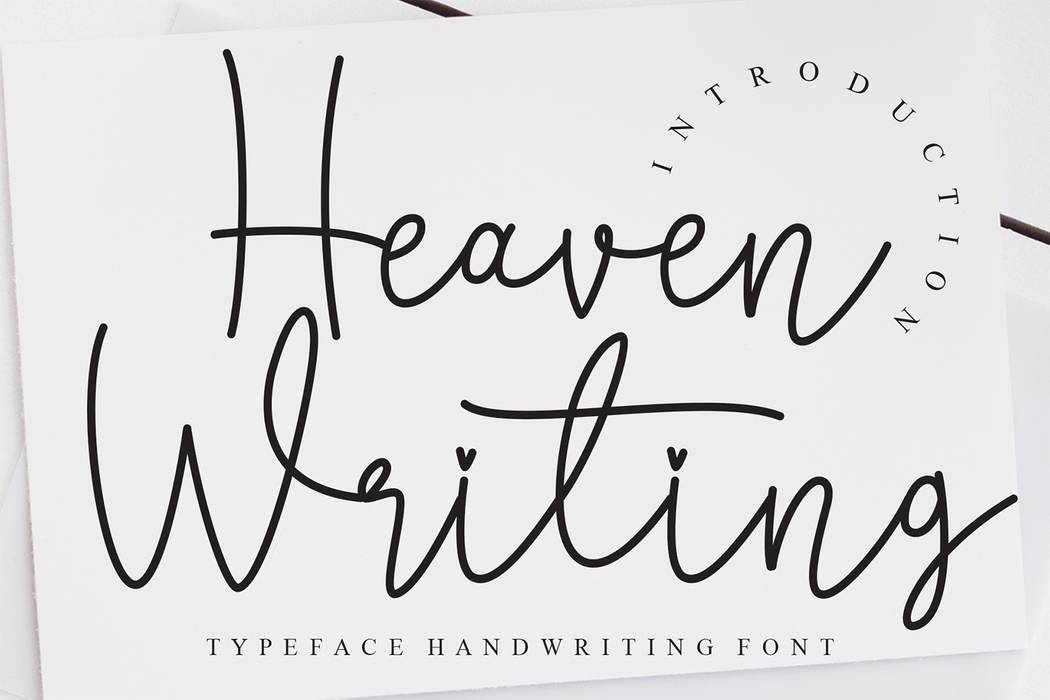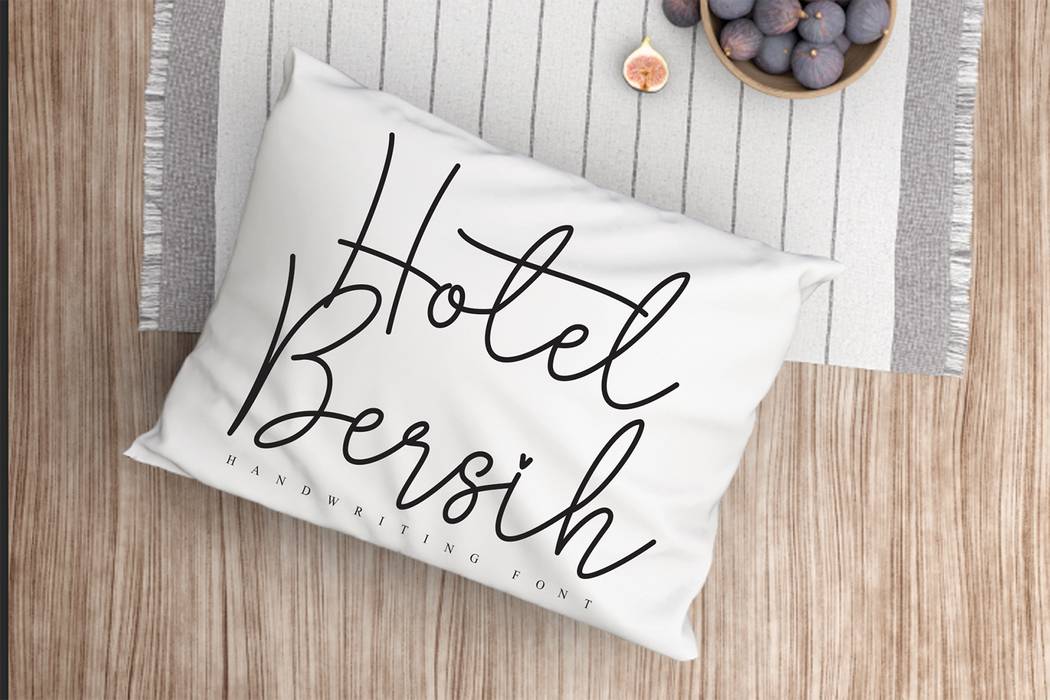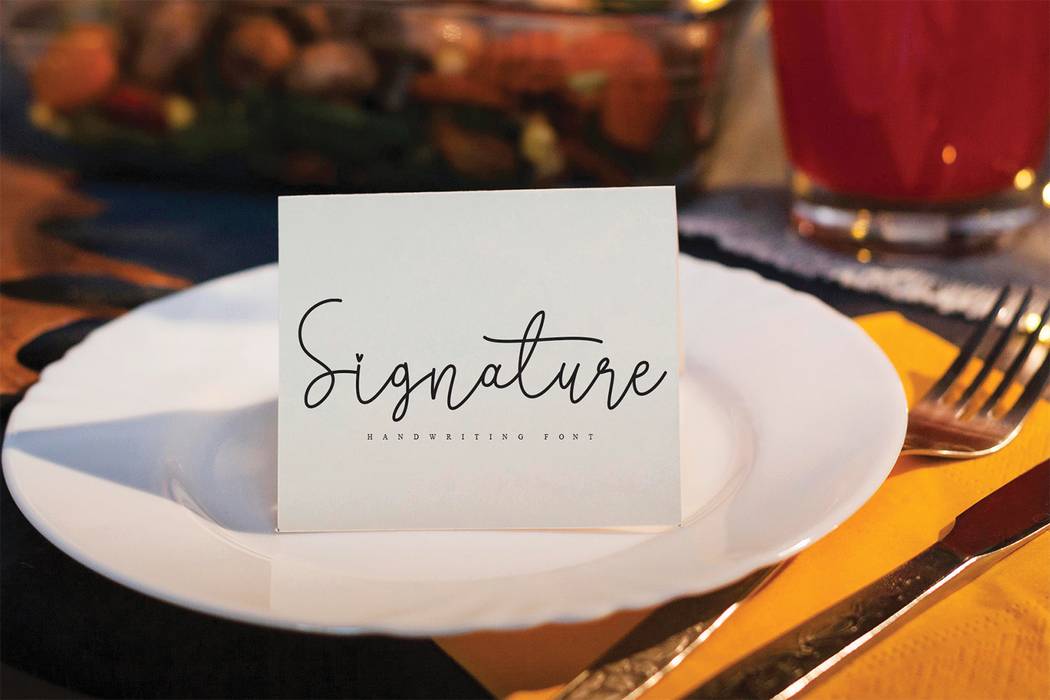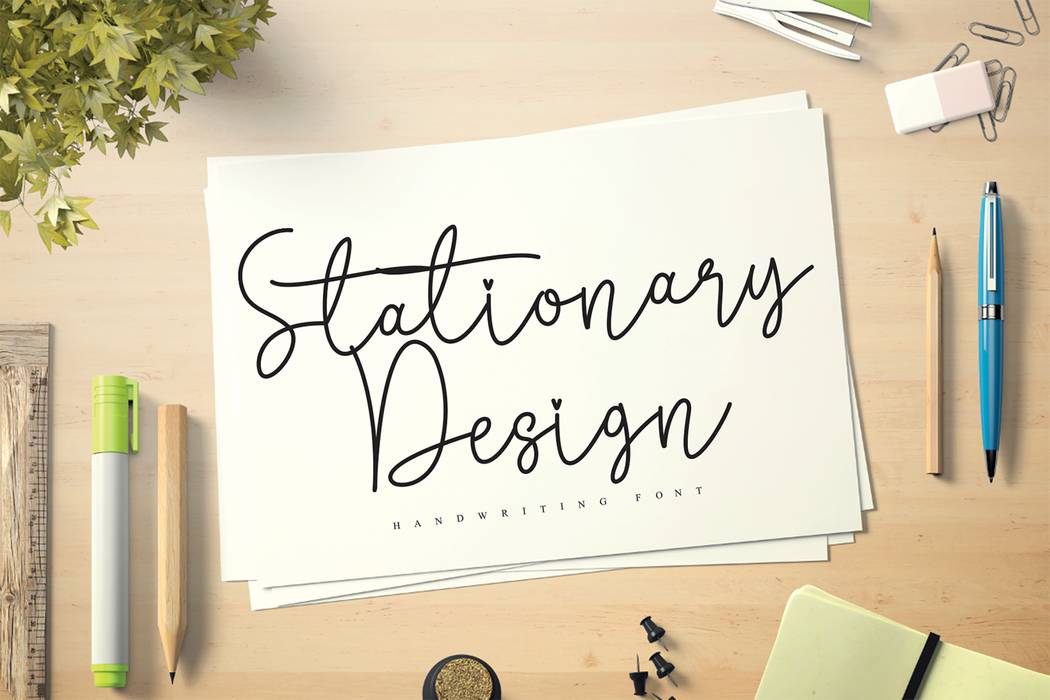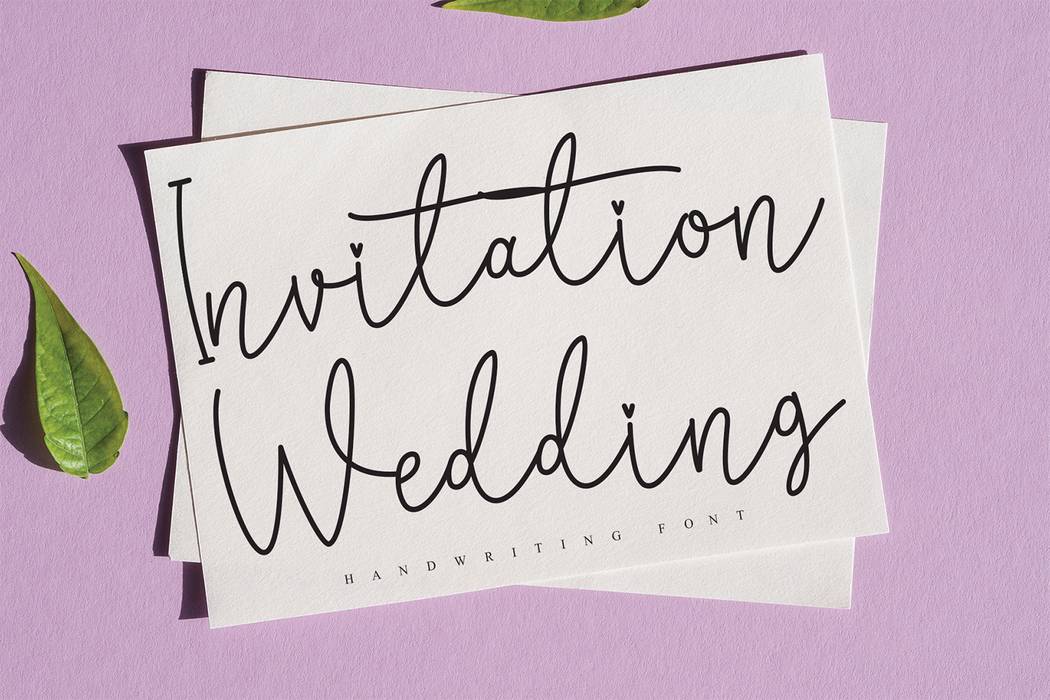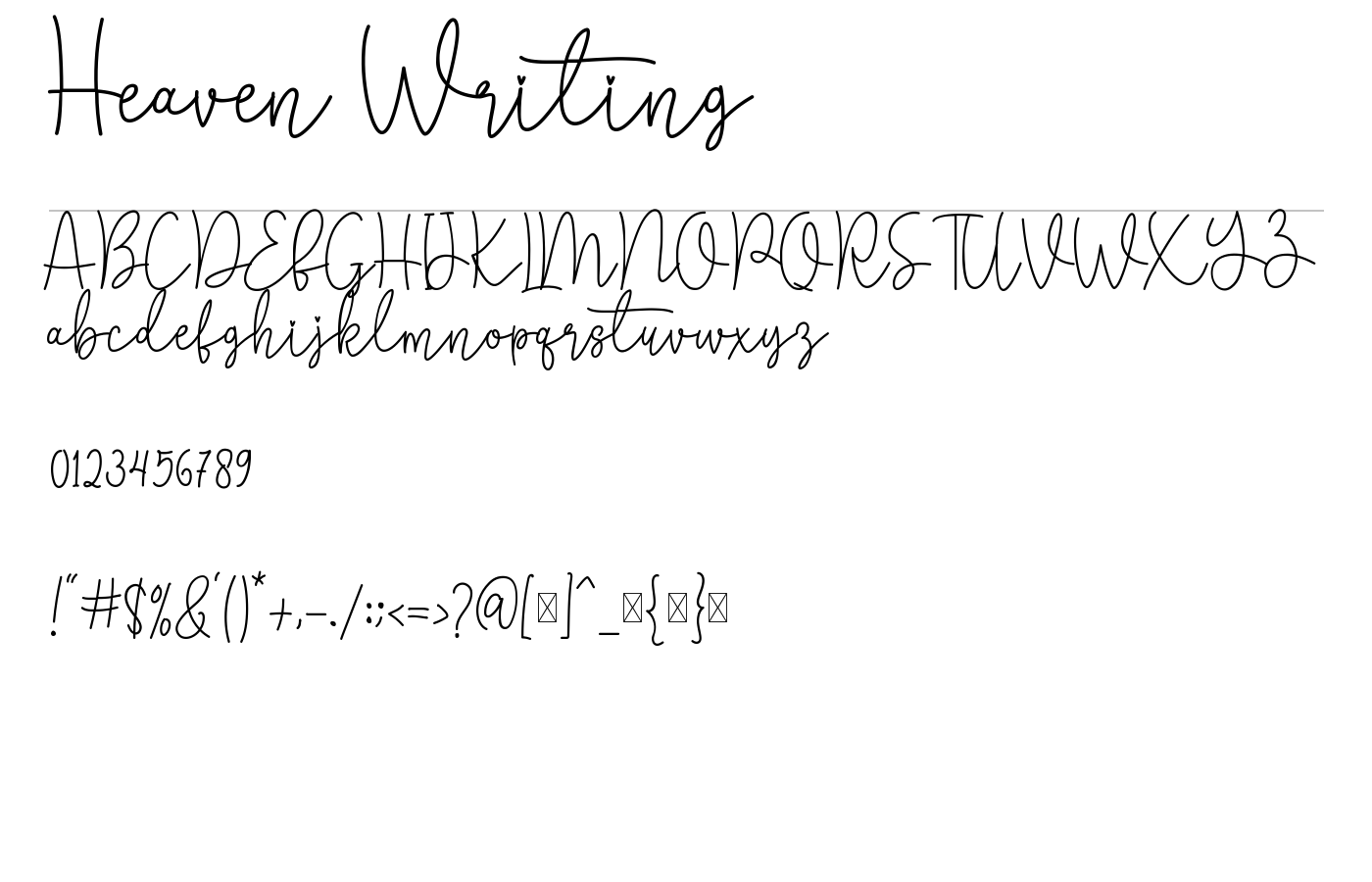
Heaven Writing Font is a delicate, handwritten script with a light weight and elegant, airy letterforms that convey a personal and whimsical feel. Its tall, narrow characters with smooth, flowing strokes make it perfect for creative projects like invitations, branding for lifestyle and fashion, or any design that seeks a charming, refined touch. This font works best in headlines and decorative uses where a graceful, handwritten aesthetic is desired.
Heaven Writing Font
About Heaven Writing Font